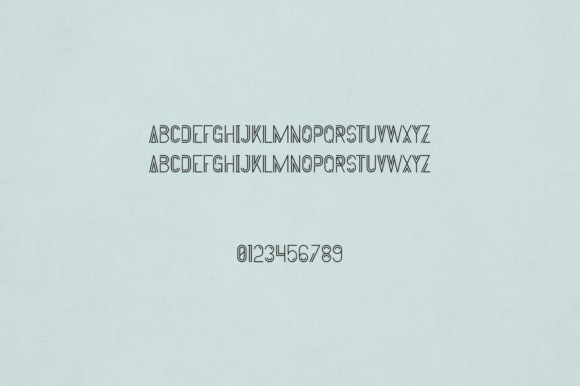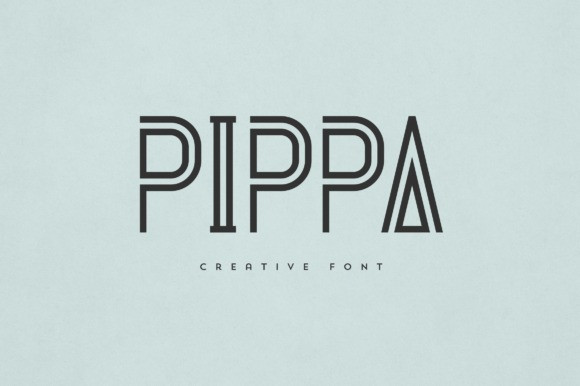
Pippa Display Font
Pippa Display Font is an elegant and versatile display font that will make your typography truly unique! It will enchant every logo, branding, headline, or plain text!